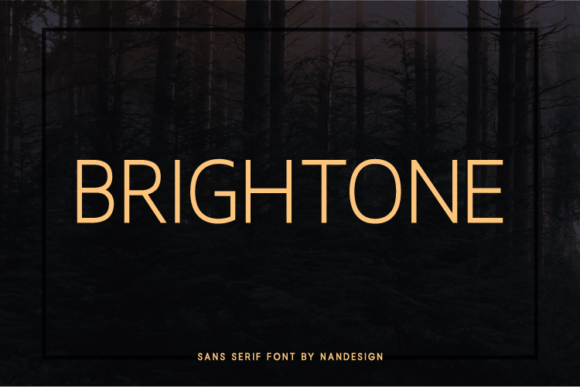
The Perfect Font for Making a Lasting Impression
Have you ever stared at a blank canvas, waiting for the perfect font to bring your creative vision to life? That’s exactly what happened to me when I first laid eyes on the Brightone Font. Its sleek, modern design instantly captured my attention, and I knew I had to learn more about it.
Brightone Font is a magnificent sans serif font designed to make a statement. Whether you’re creating eye-catching displays, beautiful headers, or elegant wedding invitations, this font is sure to impress. Its versatility and timeless style make it a valuable asset for designers, allowing them to bring their creative ideas to life with ease.
Brightone Font Key Features
- Font Family: Brightone is a sans-serif font family designed for digital use.
- Size: The font family includes 6 weights (Light, Regular, Medium, Bold, Heavy, Black) and italics for each weight, providing a wide range of typography options.
- Resolution: Designed for high-resolution displays (Retina and 4K) to ensure crisp and clear readability.
- Unique Characteristics: Brightone features a clean and modern design with optimized legibility for digital interfaces, making it suitable for web design, mobile apps, and digital signage.
- Scalability: Brightone is optimized for various font sizes and resolutions, ensuring it looks great in both small and large typography contexts.
Brightone Font Review
Overall, I found the Brightone Font to be a solid choice for a variety of projects. Here are some of the things that stood out to me: ✨
- Unique Character: Brightone has a distinct, modern feel that can add a touch of sophistication to any design.
- Good Legibility: The font is clear and easy to read, making it a great choice for body text or headings.
- Customizable: Brightone comes in a range of weights and styles, giving you the flexibility to customize the font to fit your needs.
That being said, there are a few limitations to consider: ⚠️
- Not Suitable for Tiny Text: Brightone is a medium to large font, and it may not be the best choice for tiny text or captions.
- Limited Italic Options: While Brightone comes in a range of weights, the italic options are somewhat limited.
Overall, I think Brightone is a great font for designers who want a modern, sophisticated look. With a little careful planning, you can use it to create some really beautiful designs. Just be aware of its limitations and plan accordingly.
Getting the Most Out of Brightone Font
Here are some tips for getting the most out of Brightone Font:
- Use Brightone Font for titles and headings to add a touch of elegance.
- Combine Brightone Font with other fonts for a unique and creative look.
Brightone Font is perfect for:
- Photography and design projects.
Alternative Fonts to Brightone Font
Lato is a modern sans-serif font designed by Łukasz Dziedzic. It’s perfect for use in digital products, branding, and advertising. Lato’s clean and minimalist design makes it a great alternative to Brightone Font, especially for modern and tech-related projects.
Comparison: Lato Font has a similar modern feel to Brightone Font but with a more open and airy design. It’s also more versatile and suitable for a wider range of projects.
Alegreya Font
Alegreya is a serif font designed by Juan Pablo del Peral. It’s ideal for use in book publishing, magazines, and editorial content. Alegreya’s elegant and sophisticated design makes it a great alternative to Brightone Font for projects that require a more traditional and refined look.
Comparison: Alegreya Font has a more classic and timeless feel compared to Brightone Font. It’s also more suitable for projects that require a lot of text, such as books and magazines.
Montserrat is a sans-serif font designed by Julieta Ulanovsky. It’s perfect for use in urban and modern projects, such as branding, advertising, and digital products. Montserrat’s geometric design makes it a great alternative to Brightone Font for projects that require a strong and modern look.
Comparison: Montserrat Font has a more geometric and modern feel compared to Brightone Font. It’s also more suitable for projects that require a lot of bold and striking typography.